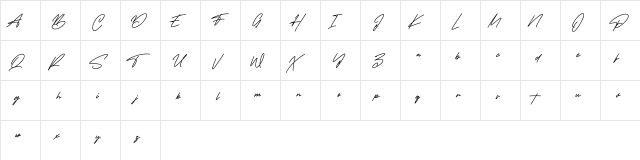
Spacetroops Free Regular
| Foundry | MaulanaCreative |
| Designer | MaulanaCreative |
Design Context for Spacetroops Free Typeface
Spacetroops Free is a composed and adaptable typeface that performs quietly and consistently across a wide range of design contexts.